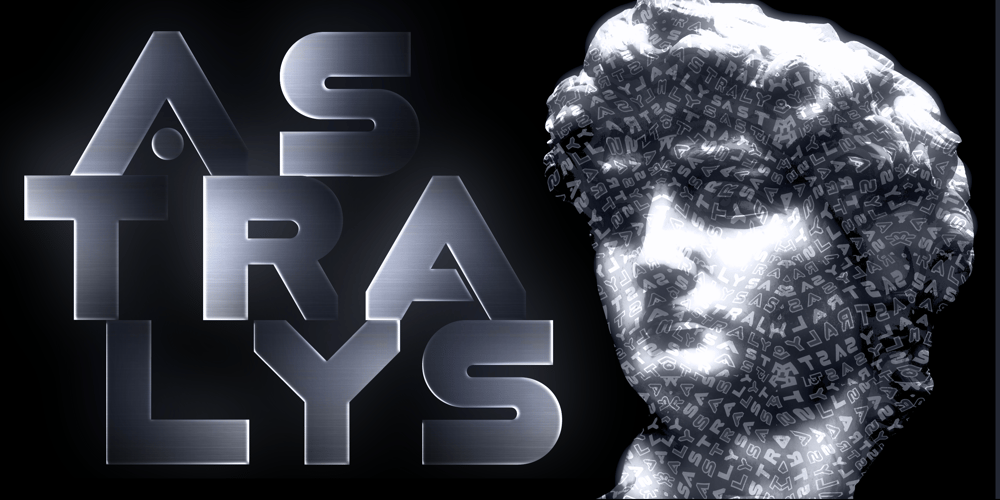
ASTRALYS Font Family was designed by Antonio Cerri and published by Cerri Antonio. ASTRALYS contains 1 styles and family package options. Astralys is a linear decorative font, works very well as a type of identity logo, poster and 3d works. It continues the tradition of precedent Xova but with a hard linear impact. Its interesting to note that with it its possible to play with straight corners to create endless couplings geometric styles and beyond. Caps only fonts.